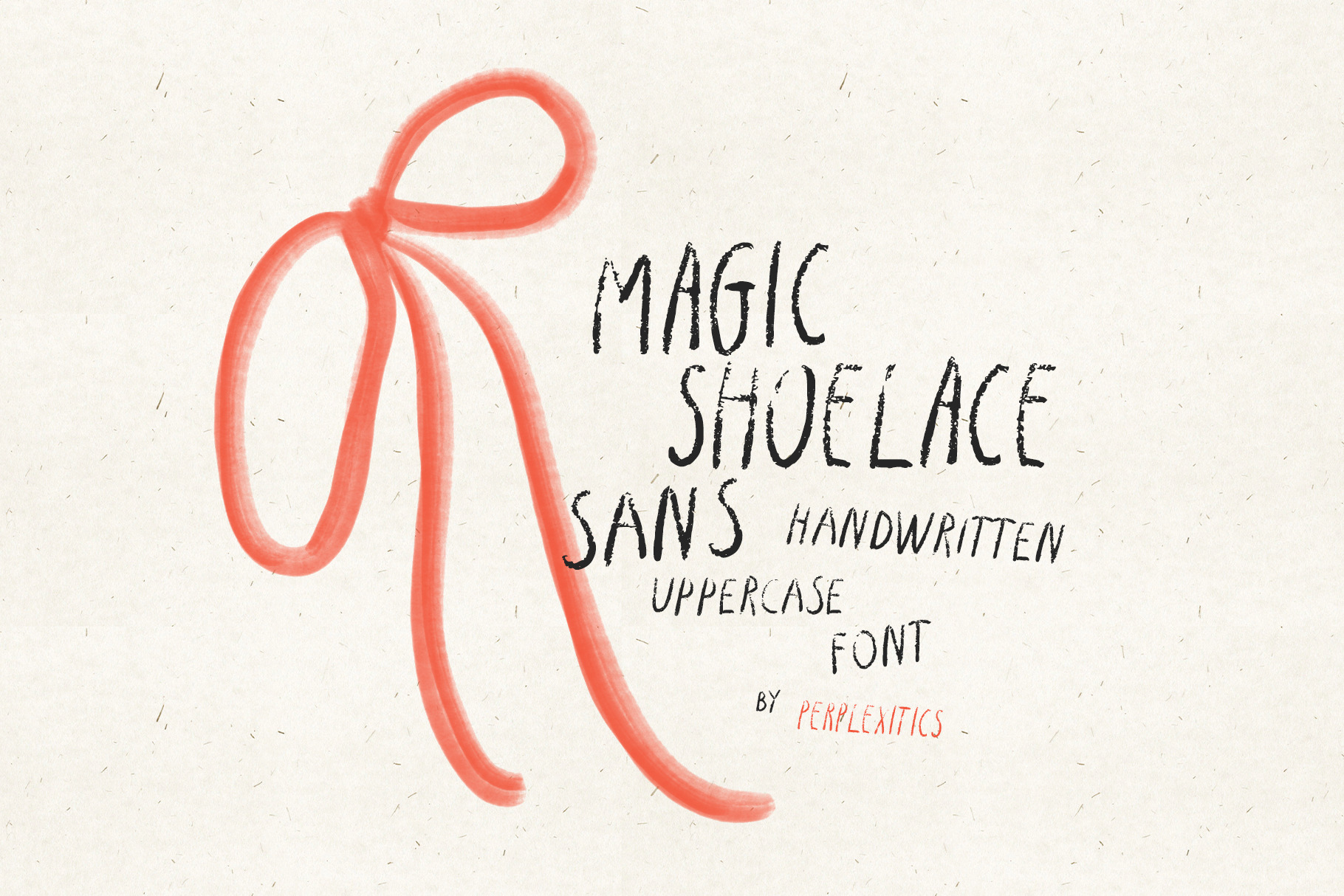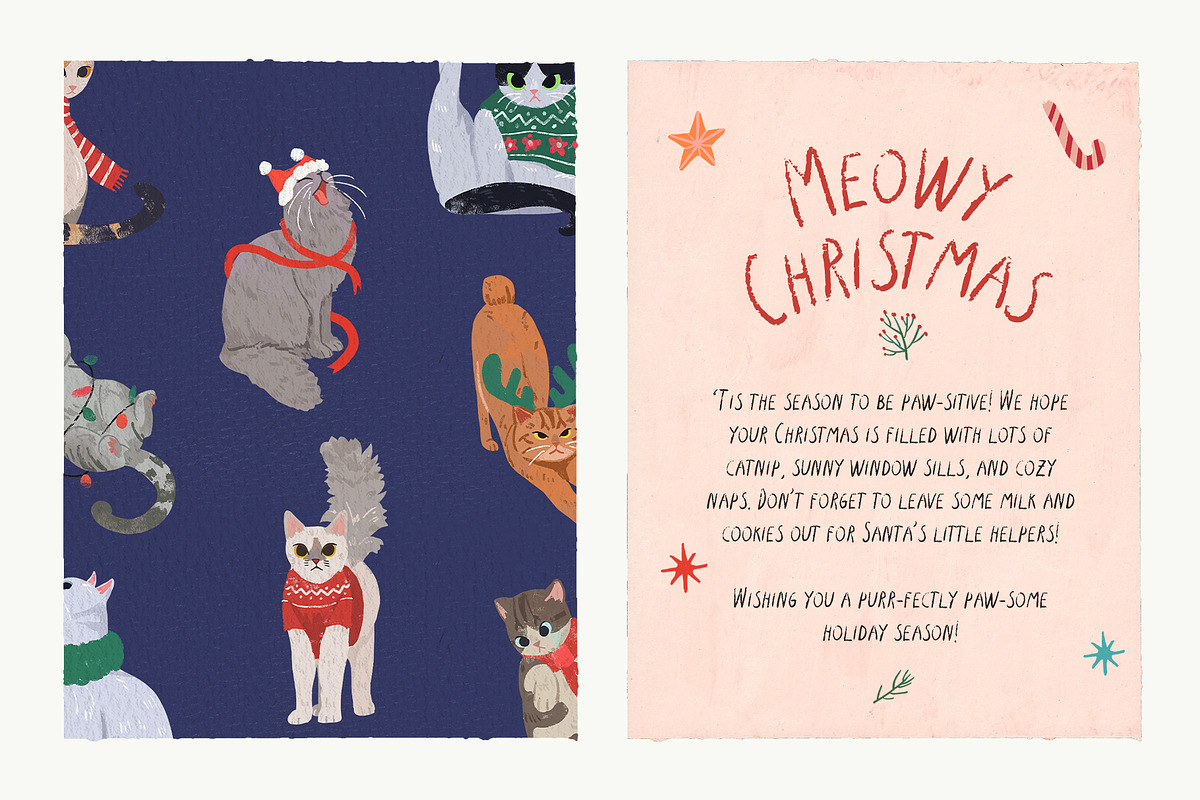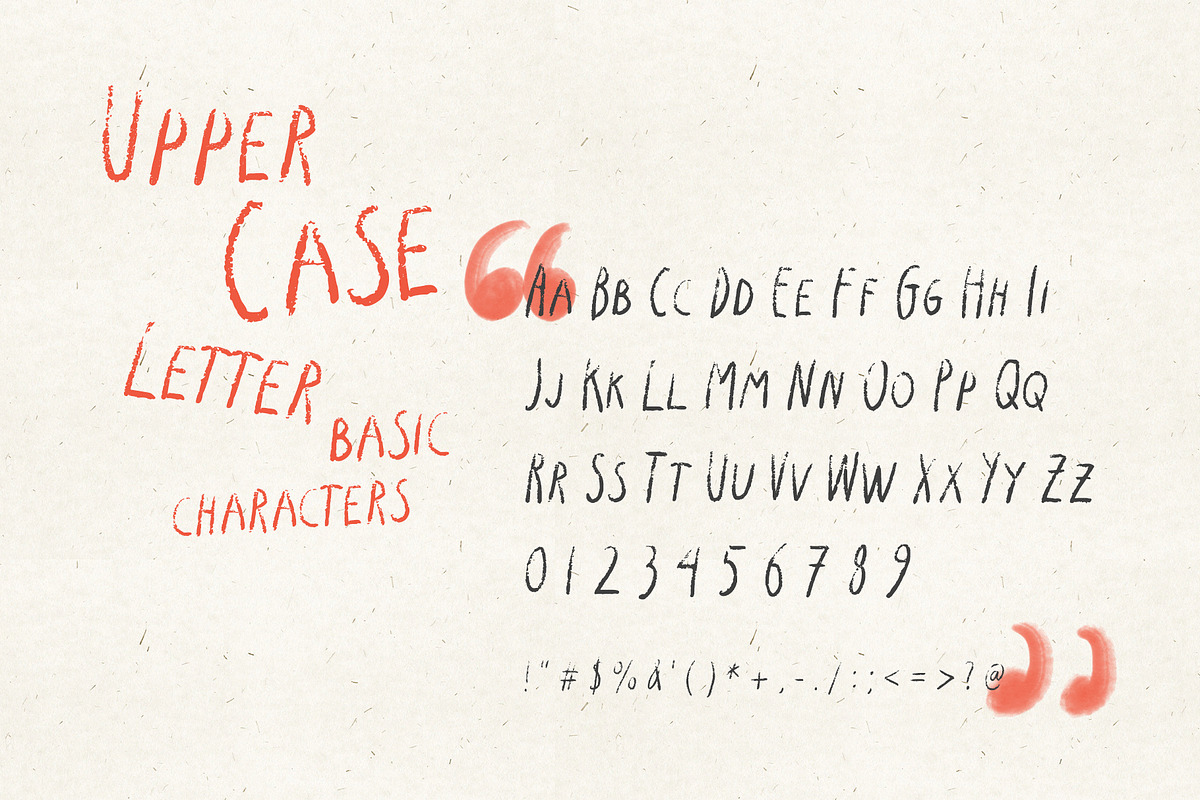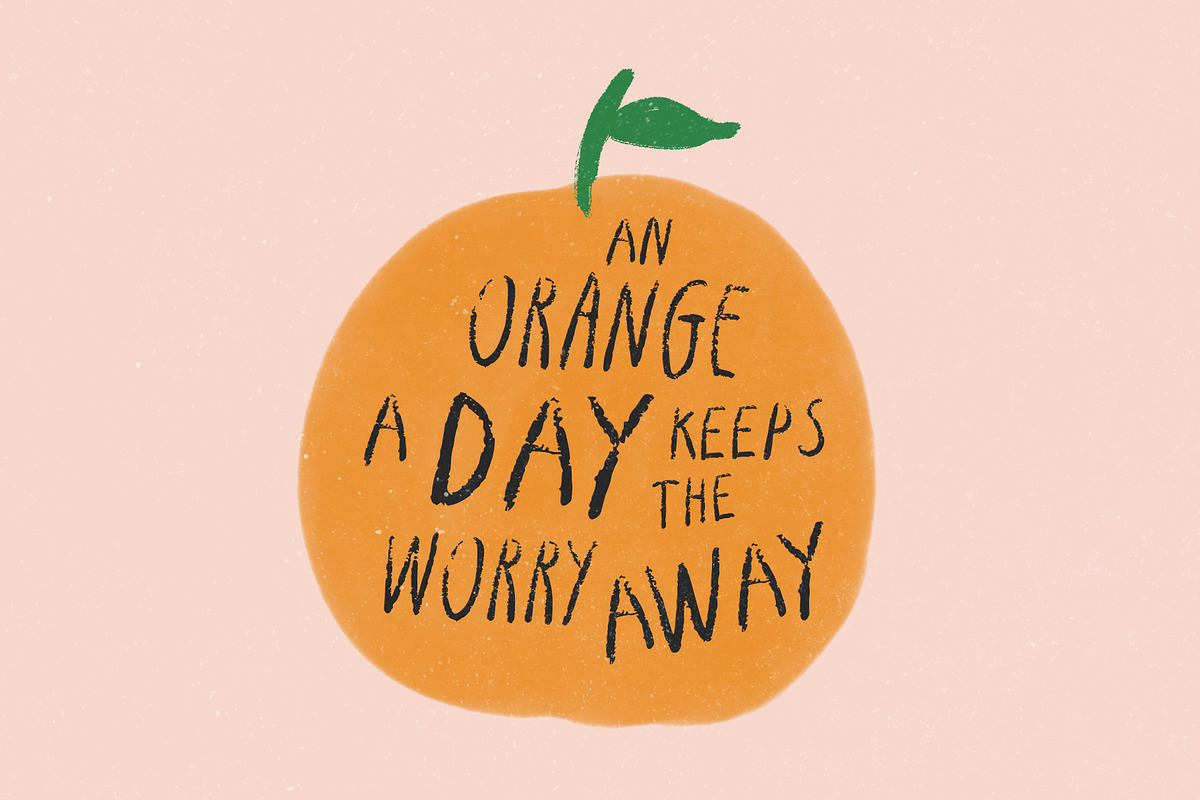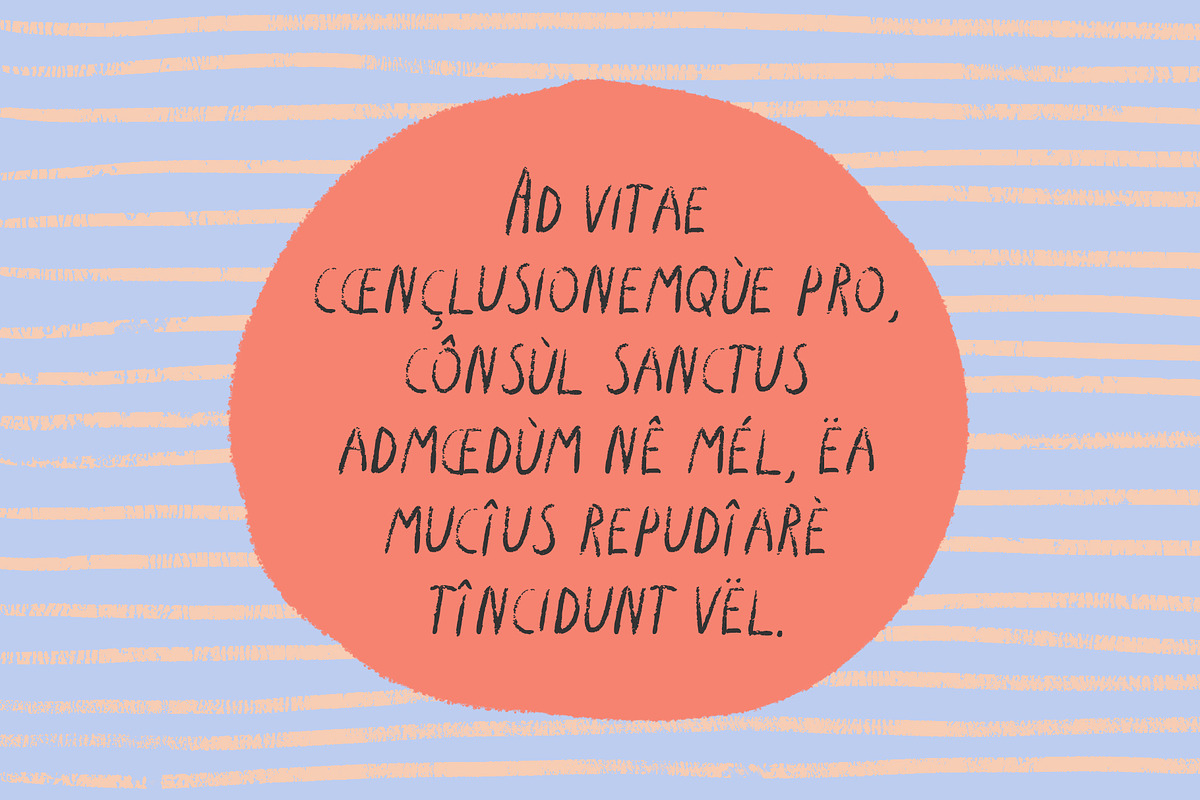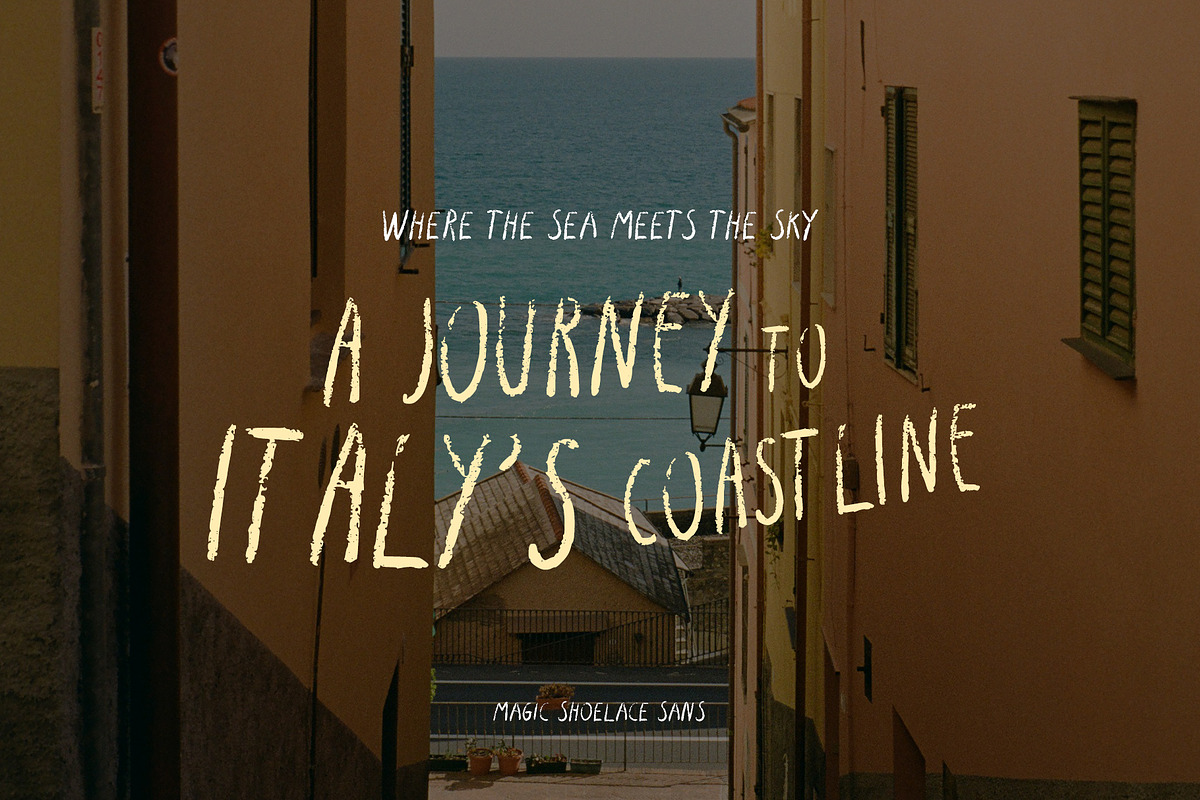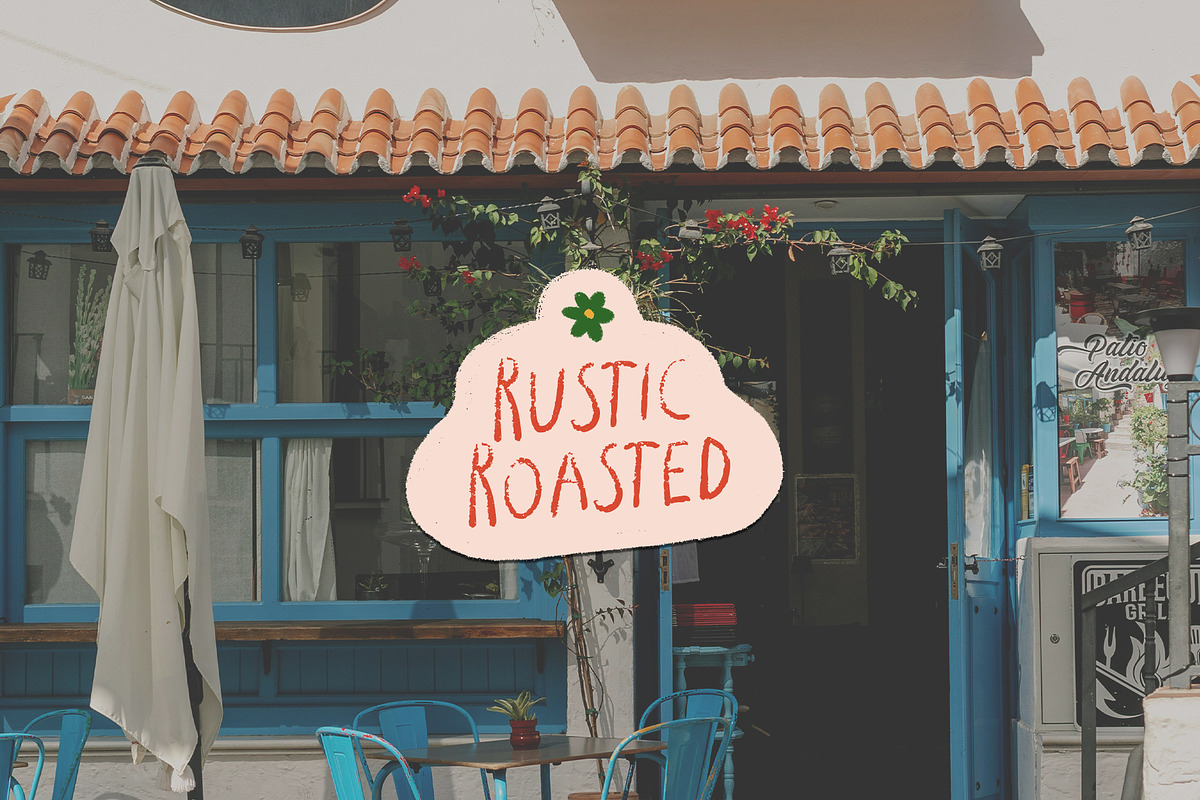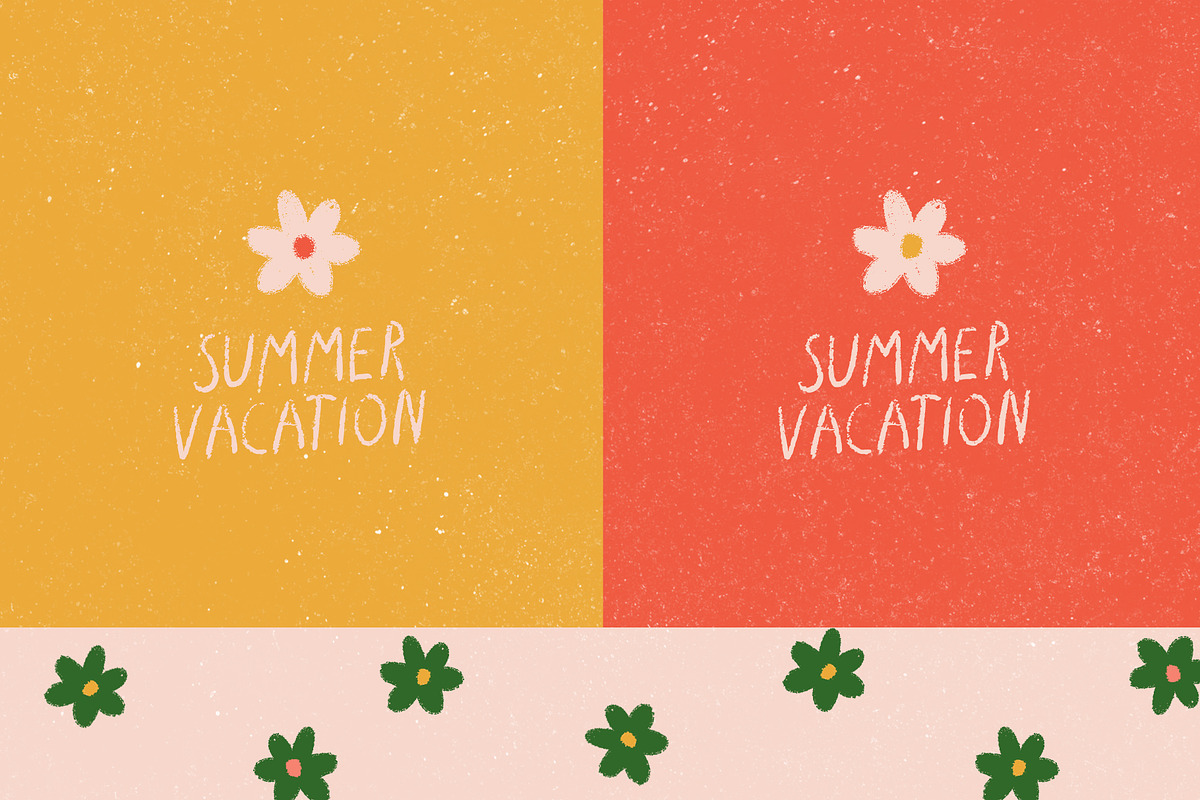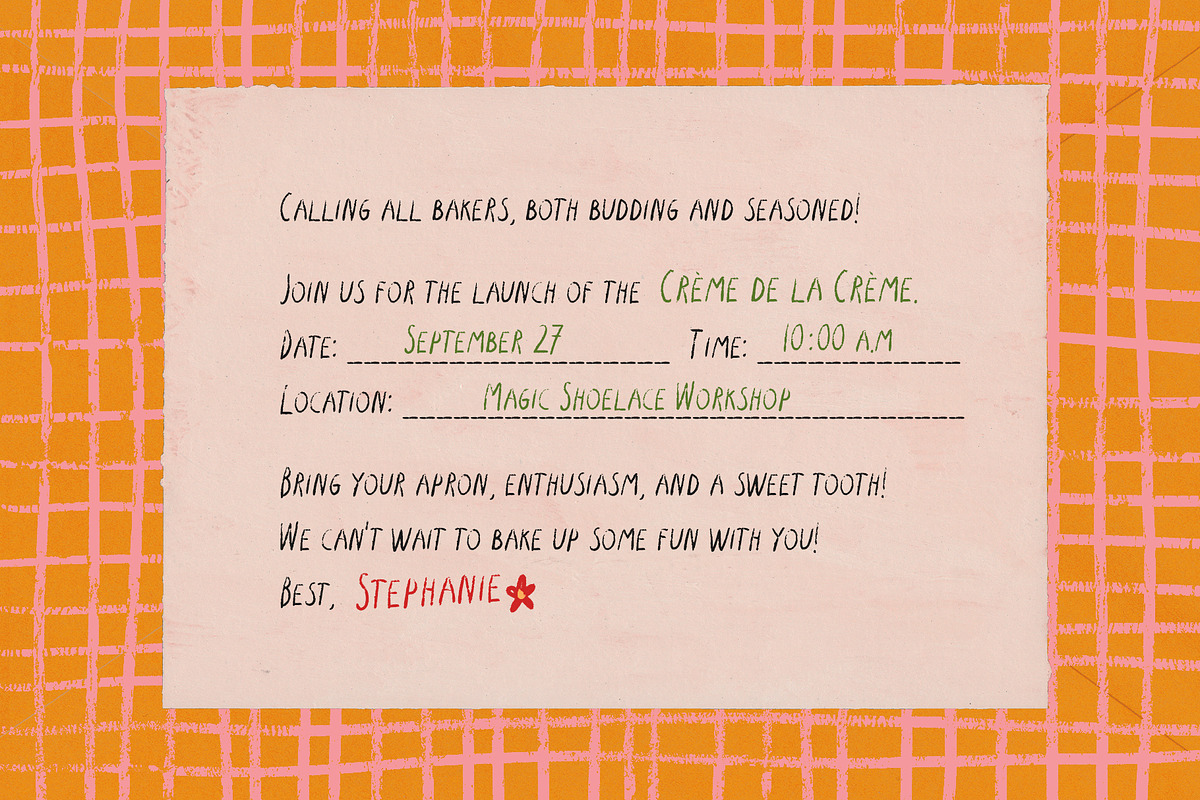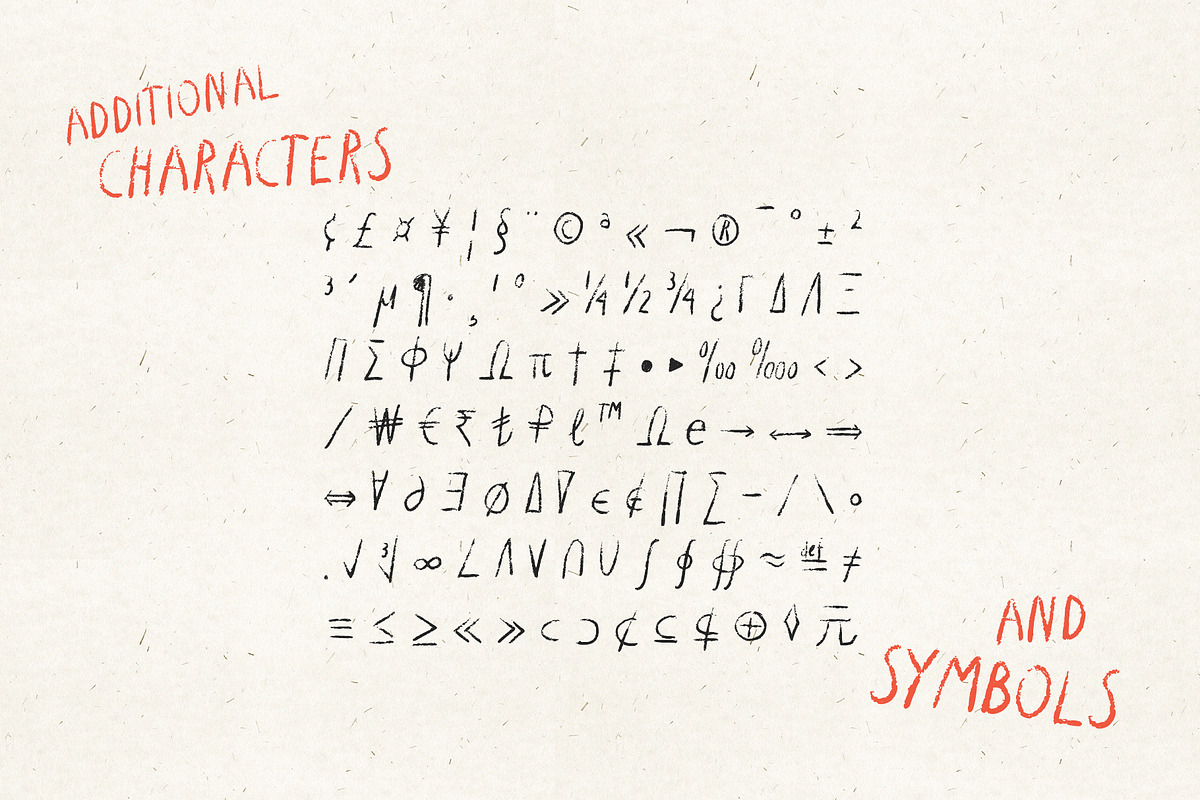
Magic Shoelace Sans Uppercase Font
Magic Shoelace Sans is a delightful uppercase handwritten font that brings a touch of whimsy and charm to your designs. This font features a playful casual sans-serif font, imbued with a charming pencil texture.
Magic Shoelace Sans Font is packed with everything you need, including uppercase letters, numbers, and punctuation. Multilingual support.